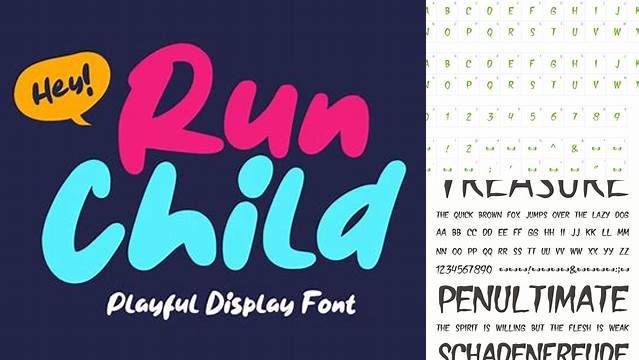
Exploring the Run Child Regular Free Font: A Typographic Treasure
The world of typography is vast and exciting, offering endless possibilities for designers, content creators, and anyone looking to add a touch of personality to their projects. Among the myriad of available typefaces, the Run Child Regular free font stands out as a particularly charming and versatile option. This font, often sought after for its playful yet legible design, offers a unique blend of childlike innocence and modern sophistication. If you're on the hunt for a free font that can bring life to your digital or print materials, look no further than Run Child Regular. Its accessibility as a free download makes it an invaluable resource for hobbyists and professionals alike, allowing for experimentation without budget constraints. We'll delve into what makes this font so special, how you can download and use it, and explore some creative applications that will surely inspire your next big idea. Get ready to discover why the Run Child Regular free font might just become your new favorite go-to typeface for adding that extra spark to your designs. It's more than just letters; it's about conveying emotion and creating a memorable visual experience, and this font definitely packs a punch in that regard. Whether you're designing a children's book, a playful brand identity, or even a quirky social media post, Run Child Regular has the potential to elevate your work from ordinary to extraordinary. Let's dive into the specifics and unlock the full potential of this delightful free font.
Understanding the Appeal of Playful Typography
When we talk about typography, we're not just talking about how letters look; we're talking about the feeling they evoke. The Run Child Regular free font is a prime example of how typeface design can directly influence the emotional response of an audience. Its design often features rounded edges, slightly irregular strokes, and a general sense of informality that immediately brings to mind childhood. This isn't accidental; it's a deliberate artistic choice to tap into feelings of nostalgia, fun, and approachability. For brands targeting younger demographics or aiming for a friendly, approachable image, a font like Run Child Regular is gold. Think about greeting cards, invitations for birthday parties, or even educational materials for young learners – the font choice instantly communicates the tone and purpose of the communication. It’s this inherent playfulness that makes the Run Child Regular free font so captivating. It breaks away from the often rigid and serious nature of more traditional fonts, injecting a dose of personality and whimsy. This approachability is crucial in today's crowded digital landscape, where grabbing attention and forging an emotional connection with your audience is paramount. Many designers find that using a font with a strong personality, like Run Child Regular, helps their work stand out and be remembered. It’s about creating a visual language that resonates on a deeper level, and this font certainly achieves that. The subtle imperfections in its design, which might be considered flaws in other contexts, are precisely what give it character and charm, making it a truly unique asset for any design toolkit. It’s like a friendly wave from a familiar character, instantly making you feel welcome and engaged. The versatility of this playful aesthetic means it can be adapted across a surprisingly wide range of applications, proving that ‘playful’ doesn’t always mean ‘unprofessional’. In fact, for the right context, it can be incredibly sophisticated.
Key Characteristics of Run Child Regular Font
What makes the Run Child Regular free font so distinctive and useful? It’s all about its unique design characteristics that set it apart. Primarily, Run Child Regular is recognized for its rounded terminals and soft edges. Unlike sharp, angular fonts, this typeface features curves that create a sense of warmth, friendliness, and approachability. This design choice directly contributes to its playful and childlike aesthetic, making it ideal for projects aimed at children or those seeking a lighthearted feel. Another key feature is its legibility, even at smaller sizes. Despite its playful nature, the designers have ensured that the letterforms are clear and easy to read. This is crucial for practical applications, whether it’s for body text in a children’s book, labels on products, or information on a website. The balance between personality and readability is where Run Child Regular truly shines. You’ll also notice a slightly irregular baseline or stroke width in some versions or interpretations of this font style. These subtle imperfections mimic the natural variation found in handwriting, particularly that of a child, adding an authentic touch of charm and personality. This isn't a flaw; it's a feature that enhances its unique character. The generous x-height is another important aspect, meaning the height of the lowercase letters (like ‘x’, ‘a’, ‘c’) is relatively large compared to the ascenders and descenders. This contributes significantly to its readability and impact, especially in display text. The overall tone is cheerful and optimistic, which is conveyed through every curve and loop of the letterforms. This makes the Run Child Regular free font perfect for projects that aim to evoke happiness, excitement, or a sense of wonder. From its smooth curves to its slightly whimsical imperfections, Run Child Regular is a typeface crafted with a specific purpose: to bring joy and clarity to your designs. Its robust design ensures it works well in both digital and print media, offering a consistent and appealing visual identity across different platforms. It’s a testament to how thoughtful typographic design can communicate so much more than just words.
Creative Applications for Run Child Regular
The versatility of the Run Child Regular free font is truly impressive, allowing it to be incorporated into a wide array of creative projects. Its inherent charm makes it a standout choice for anything targeting a younger audience. Think children's books, educational materials, and event invitations like birthday parties or school fairs. The font instantly communicates fun and accessibility, making the content more engaging for kids. Beyond the educational realm, Run Child Regular can add a unique touch to brand identities for businesses that want to project a friendly, approachable, and perhaps slightly quirky image. This could include anything from a local bakery, a toy store, a children's clothing line, or even a creative agency specializing in family-oriented content. Its distinctive look ensures brand recognition and creates a memorable impression. In the digital space, this font is perfect for website design, especially for blogs or online platforms focused on parenting, lifestyle, or creative hobbies. It can also be a great choice for social media graphics, creating eye-catching posts for platforms like Instagram or Pinterest. Imagine using it for quotes, announcements, or even simple text overlays on images – it immediately injects personality. For print design projects, consider using Run Child Regular for posters, flyers, greeting cards, or packaging where a playful and distinctive style is desired. Its readability at various sizes also makes it suitable for headlines, subheadings, and even short blocks of body text if the overall design calls for it. Personal projects also benefit greatly. Whether you’re designing custom stationery, crafting a scrapbook, or creating personalized gifts, the Run Child Regular free font can add that special, handmade feel. It’s also fantastic for DIY craft projects, where it can be used for stencils, vinyl cutting, or printed designs. The key is to leverage its playful nature where it feels authentic and enhances the message. It's not just about making things look cute; it's about using typography strategically to evoke the right emotions and create a cohesive visual experience. This font is a powerful tool in your design arsenal, ready to bring a touch of joy and distinctiveness to whatever you create.
Tips for Pairing Run Child Regular with Other Fonts
While the Run Child Regular free font is fantastic on its own, pairing it effectively with other typefaces can elevate your design to a whole new level. The key is to create contrast and balance, ensuring that Run Child Regular shines while the supporting fonts complement its playful character. A great strategy is to pair it with a more classic, legible sans-serif font. Think of something clean and straightforward like Open Sans, Lato, or Montserrat. These fonts provide a solid, neutral base that allows Run Child Regular’s personality to pop. Use the sans-serif for longer blocks of text, body copy, or informational sections, and reserve Run Child Regular for headlines, subheadings, or accent text. This creates a clear visual hierarchy and ensures readability. Another effective pairing involves using a more formal or elegant serif font. This creates a delightful juxtaposition – the playful child meets sophisticated adult. Fonts like Garamond, Merriweather, or Playfair Display can work wonderfully. Use Run Child Regular for playful titles or call-to-action buttons, and the serif font for the main body text to add a touch of class and tradition. The contrast between the casual and the formal can be incredibly striking. When selecting a pairing font, consider its personality. Avoid fonts that are too similar in style, as this can lead to a muddled or uninteresting design. You want distinctiveness. For example, pairing Run Child Regular with another highly decorative or script font might be overwhelming. Instead, focus on fonts that offer a complementary contrast in terms of weight, style, or historical classification. Experimentation is crucial, guys! Don't be afraid to try different combinations to see what resonates best with your project’s goals and target audience. Mock up designs with various pairings and step back to assess the overall impact. Ensure the chosen pairing enhances the message and doesn’t detract from it. Remember, the goal is to create a harmonious and visually appealing composition. The Run Child Regular free font is versatile, but the right partner font will truly unlock its full potential, making your design cohesive and impactful.
Ensuring Legibility with Run Child Regular Font
One of the most important aspects of any typeface, including the Run Child Regular free font, is its legibility. While its playful design is a major selling point, ensuring that your message is clear and easy to understand is paramount. Fortunately, Run Child Regular is generally designed with good legibility in mind, but there are ways to optimize its use. Firstly, consider the size and context. While Run Child Regular is often legible even at smaller sizes, using it for very small body text in print might strain the eyes, especially if the surrounding design is also busy. For headlines, titles, and short bursts of text, it generally performs exceptionally well. If you’re using it for longer passages, ensure the font size is adequate, and the line spacing (leading) is generous enough to prevent letters from blurring together. White space is your friend here! Another factor is color contrast. Ensure there is sufficient contrast between the text color and the background color. High contrast, like dark text on a light background or vice versa, significantly improves readability. Avoid using Run Child Regular in colors that are too similar to the background, as this will make it difficult to read, regardless of the font’s inherent legibility. Avoid overuse in body text. While it can be legible, its strong personality is best suited for display purposes – headlines, subheadings, key phrases, or decorative elements. For extensive body copy, pairing it with a more neutral and highly legible font (as discussed earlier) is often the best approach. This strategy uses Run Child Regular for impact and branding where its character is most effective, while a plainer font handles the bulk of the information. Testing your design is also critical. Print out a draft or view your digital design on different screens and at different sizes. Get feedback from others if possible. Does the text read easily? Are there any awkward letter combinations? Addressing these points will ensure that the Run Child Regular free font not only looks good but also effectively communicates your intended message without causing confusion or fatigue for the reader. It's all about finding that sweet spot where its unique charm meets functional clarity.